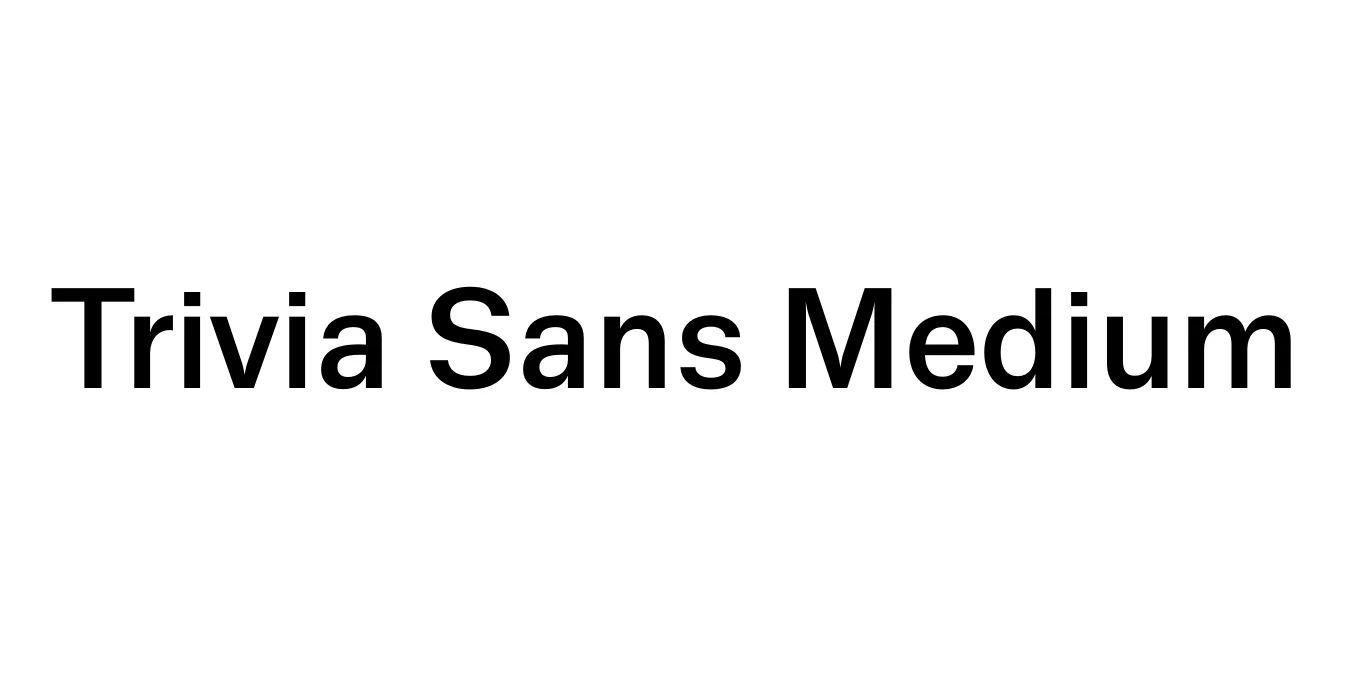
Trivia Sans Medium
Designed by František Štorm
Trivia Sans Medium is a refined weight within the larger Trivia superfamily, a comprehensive typographic system designed by the prolific Czech type designer František Štorm. This typeface was specifically engineered to handle the complexities of editorial design, bridging the gap between historical grotesque models and contemporary humanistic clarity. Its architecture is defined by open counters and a generous x-height, making it an exceptionally reliable choice for high-pressure publishing environments.
The Medium weight is often considered the 'sweet spot' of the family, providing enough visual presence for distinct hierarchy without sacrificing the airiness required for long-form reading. It is widely praised for its neutrality and versatility, allowing it to function seamlessly across various media, from printed broadsheets to modern high-definition screens. As part of Storm Type Foundry's legacy, it represents a perfect marriage of technical precision and artistic character.
Trivia Sans Medium Best Uses
Ideally suited for magazine sub-headings, pull quotes, and structured body text.
Excellent for developing a clean, authoritative, and contemporary brand voice.
Highly legible for user interfaces, navigation menus, and digital content blocks.